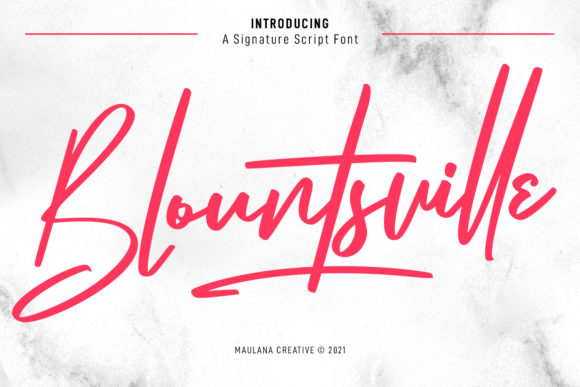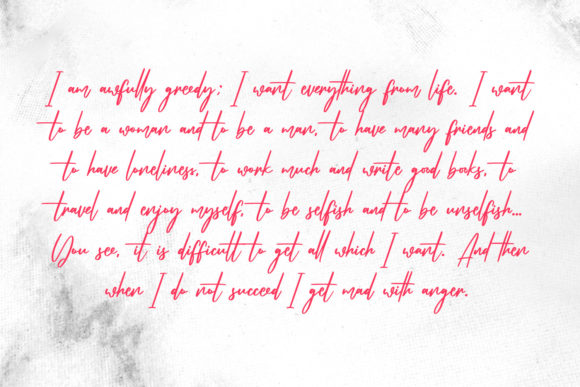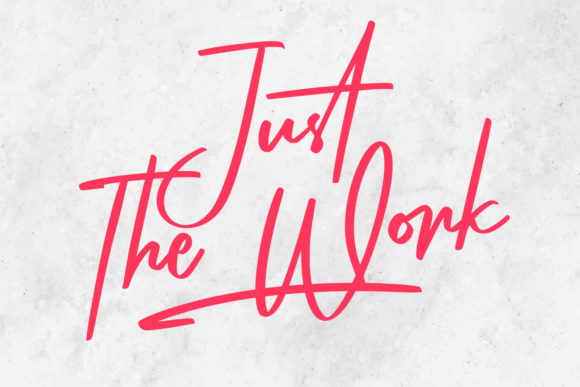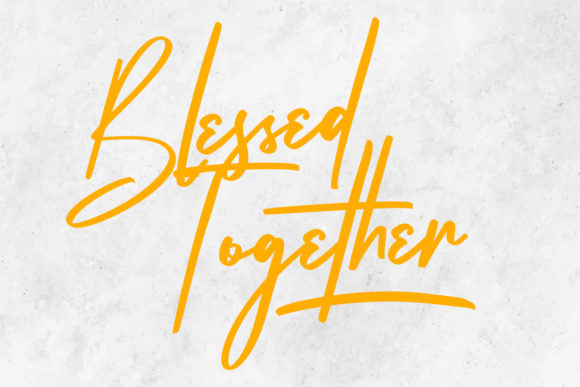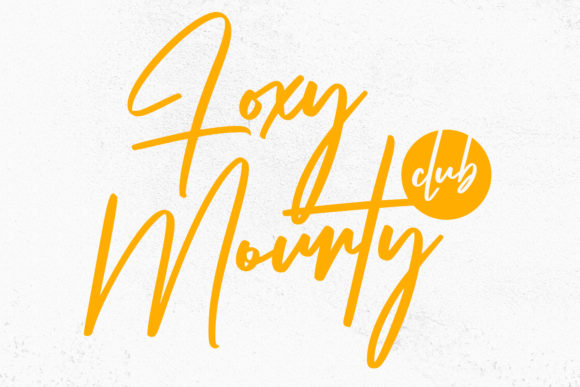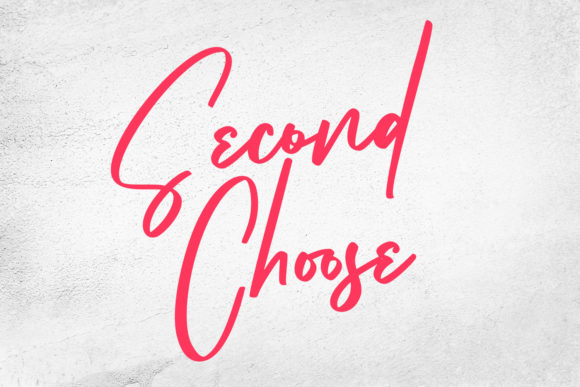
Blountsville Script Font
About Blountsville Script Font
Blountsville Script is a luxurious and timeless handwritten font. It is the best choice for creating eye catching logos, branding and quotes. Every letter has a unique and beautiful touch, which will make your design come alive!